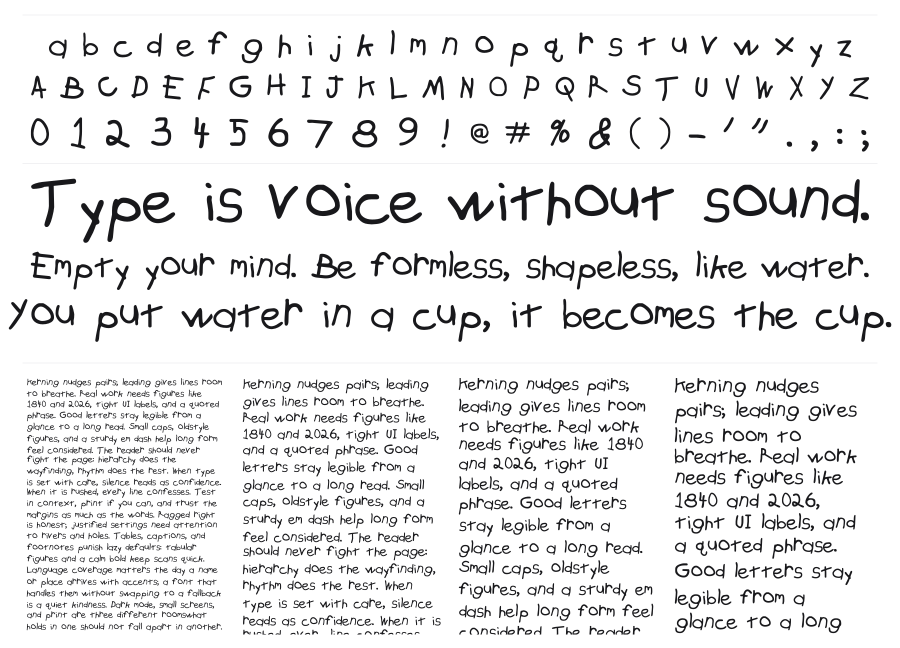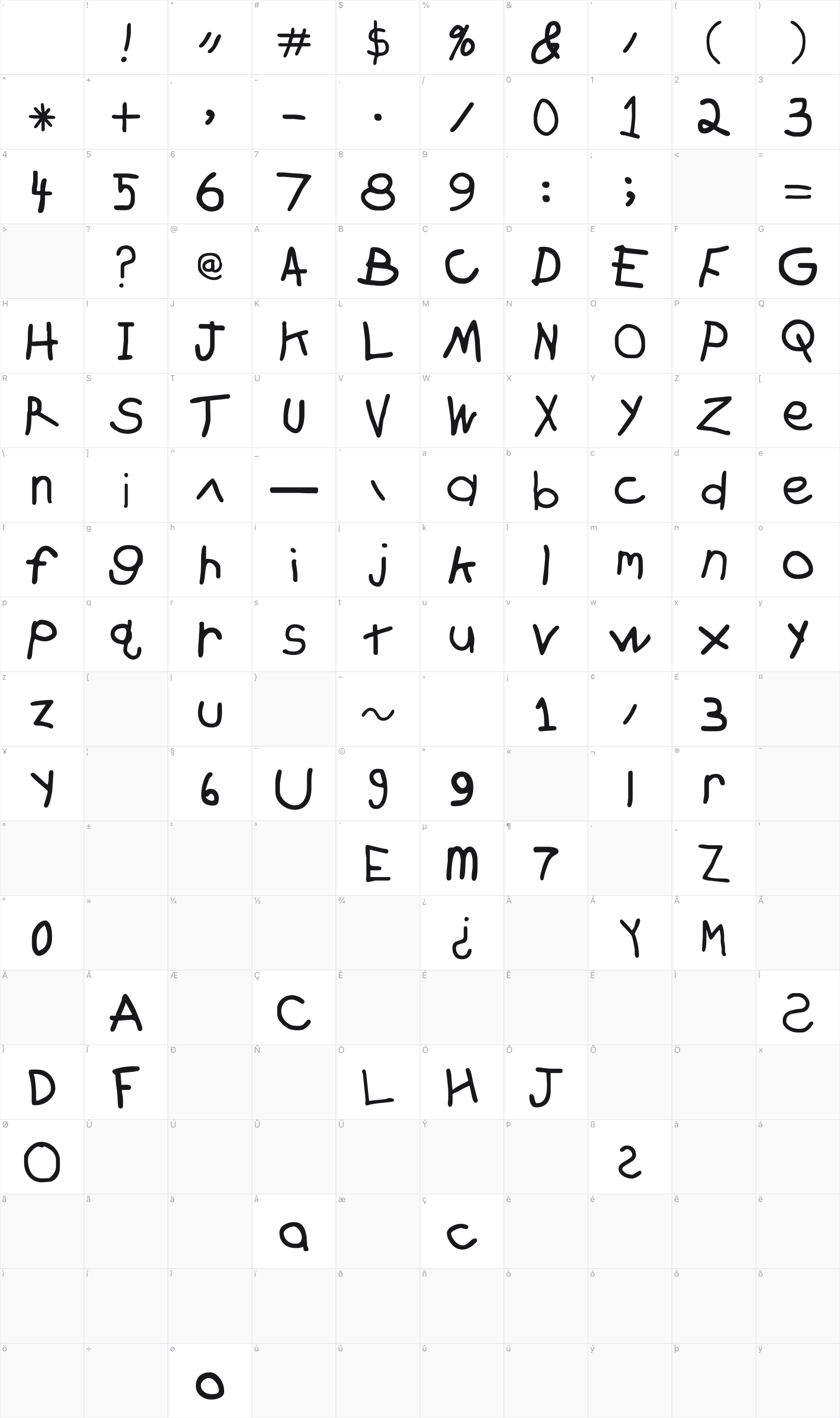
Zachary
by Edward Leach
Zachary is a casual handwritten face by Edward Leach with the bouncy, uneven quality of a kid writing with a thick marker. The letterforms are loose and slightly oversized, leaning into a genuine childlike energy that feels spontaneous rather than designed. It works best in headlines, greeting cards, and playful branding where a little quirky imperfection is the whole point.